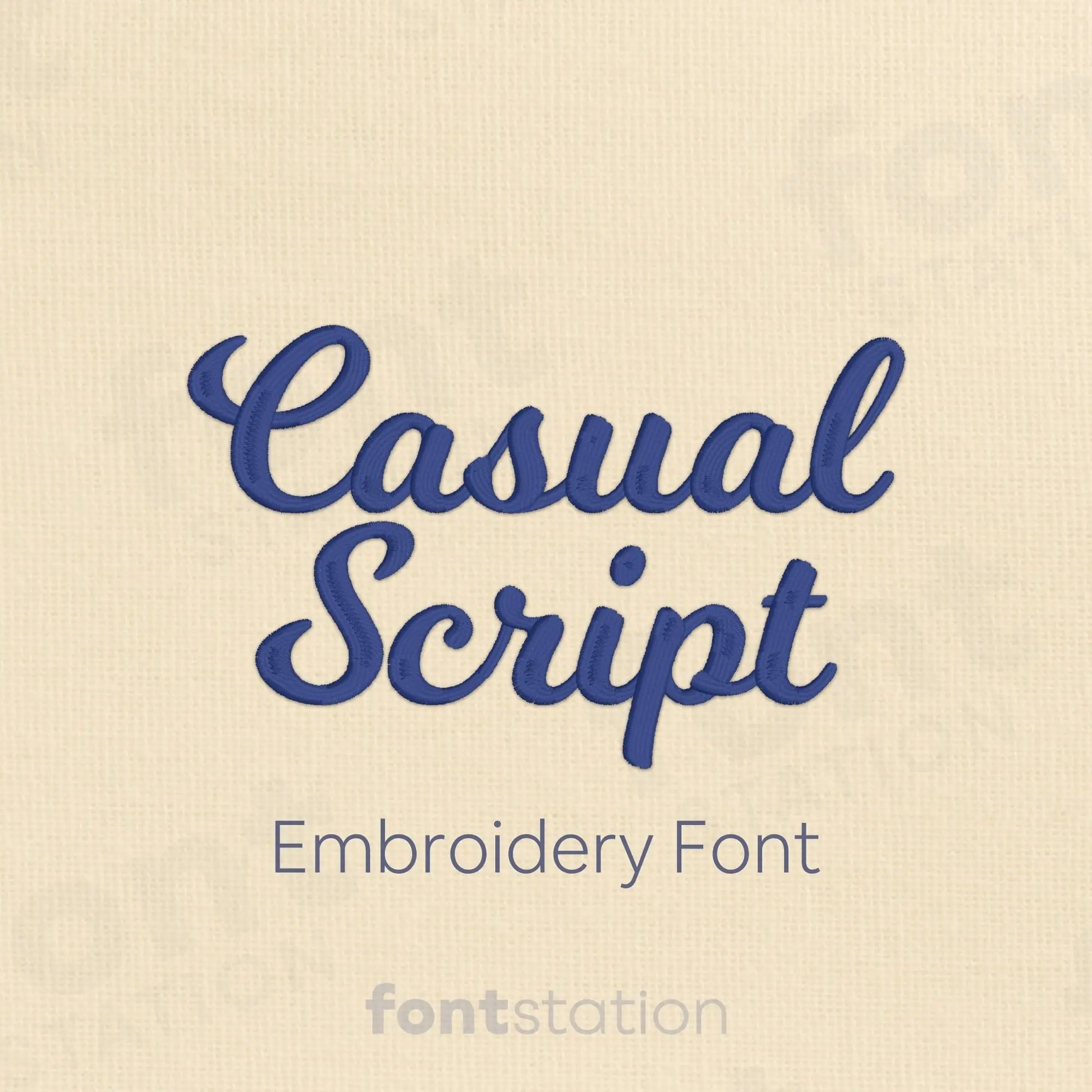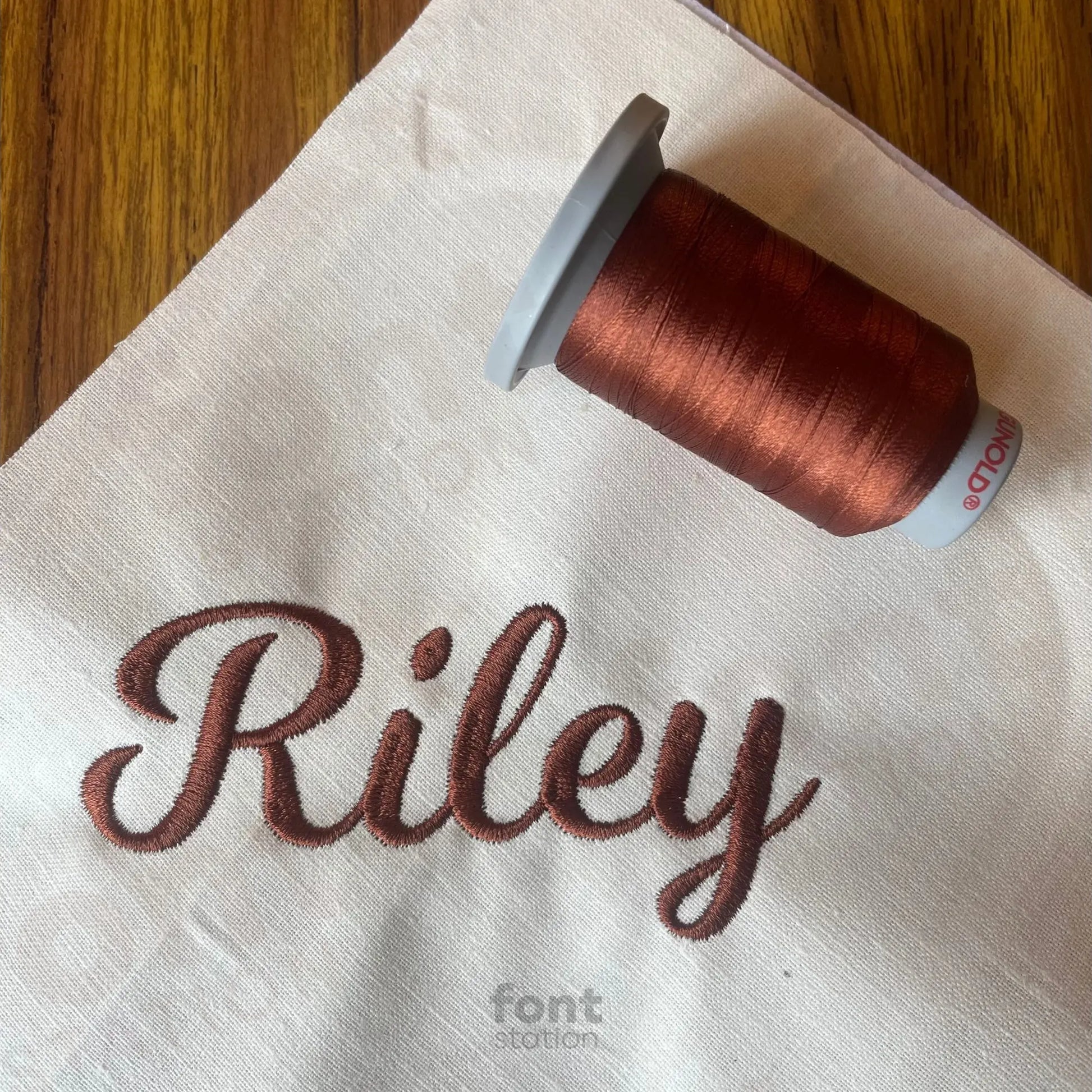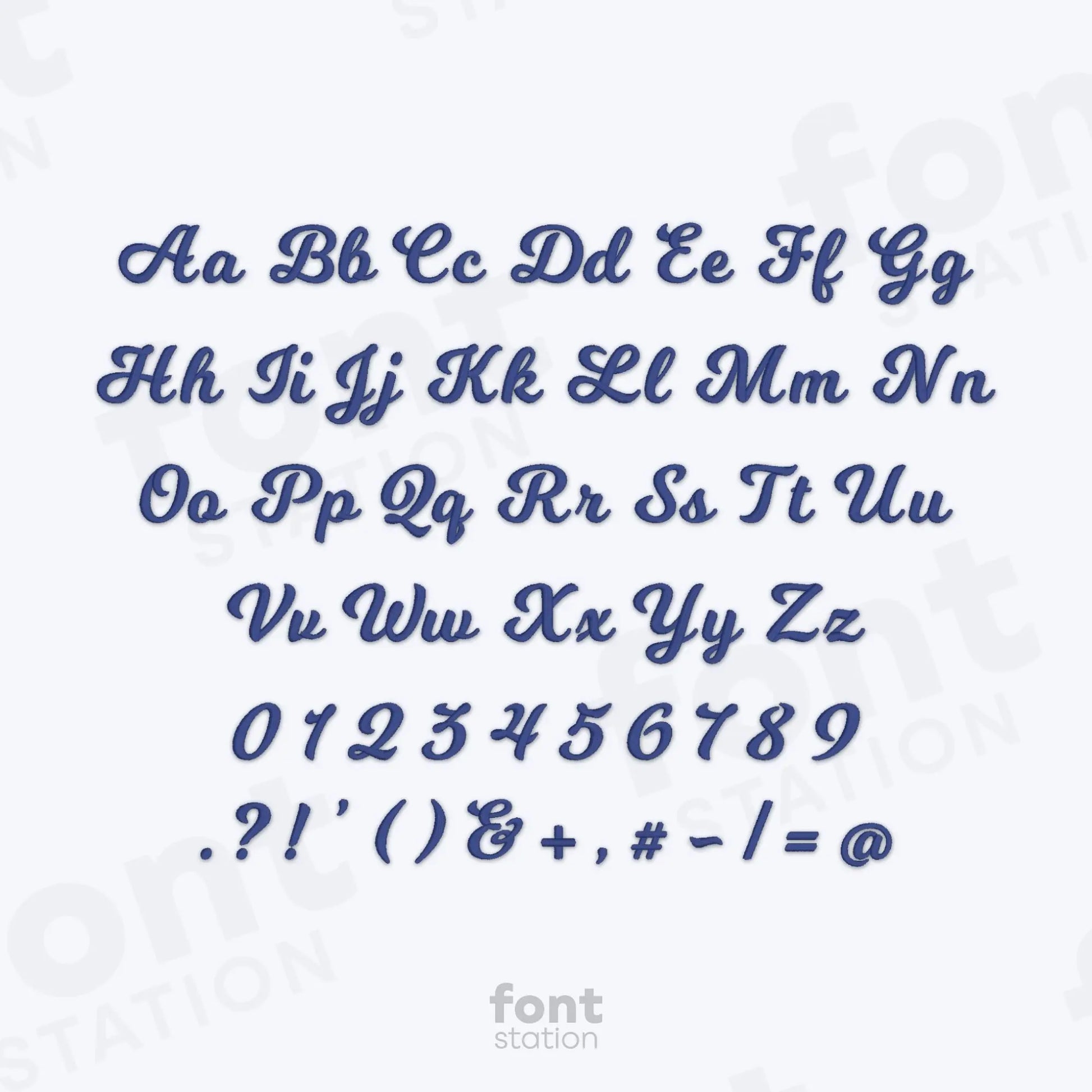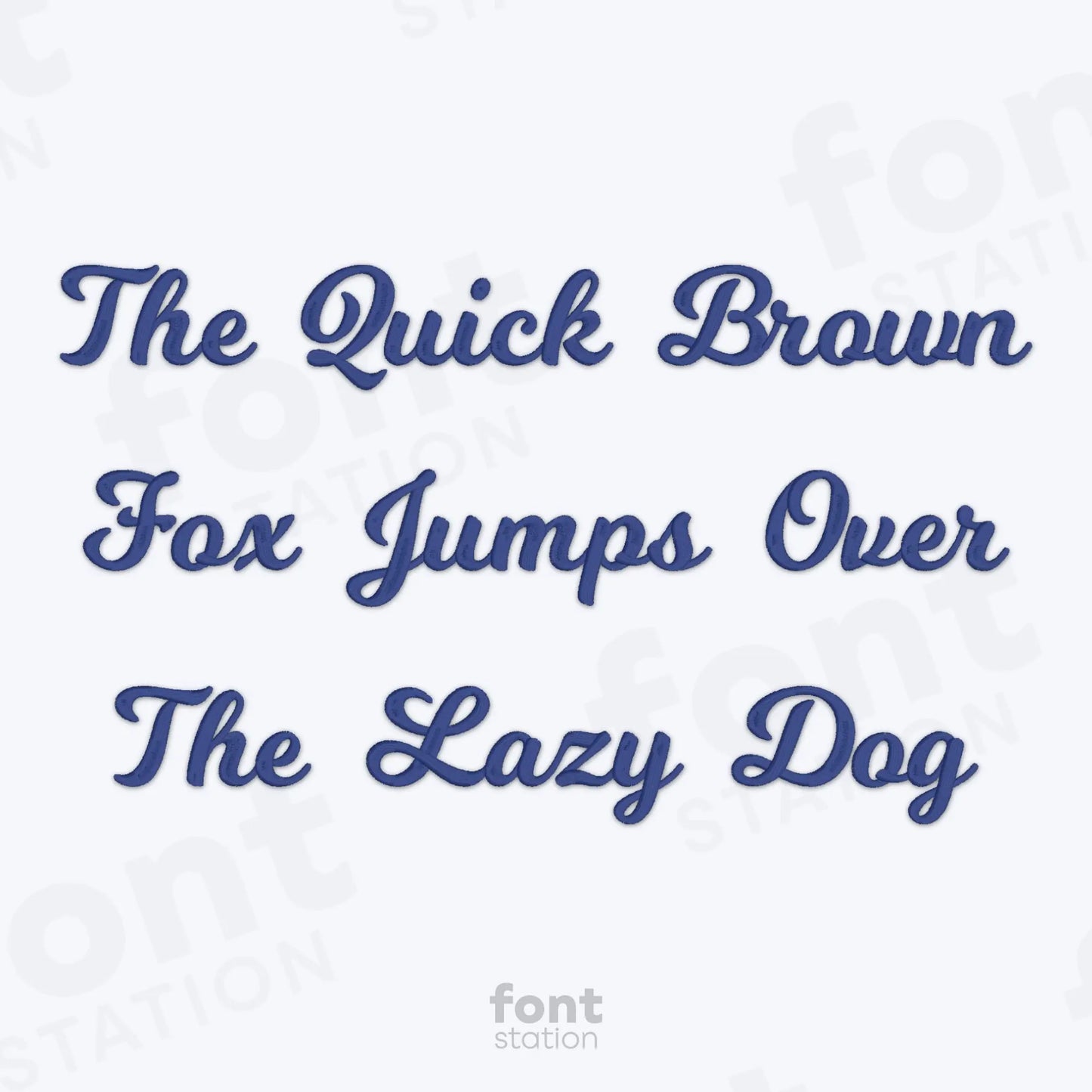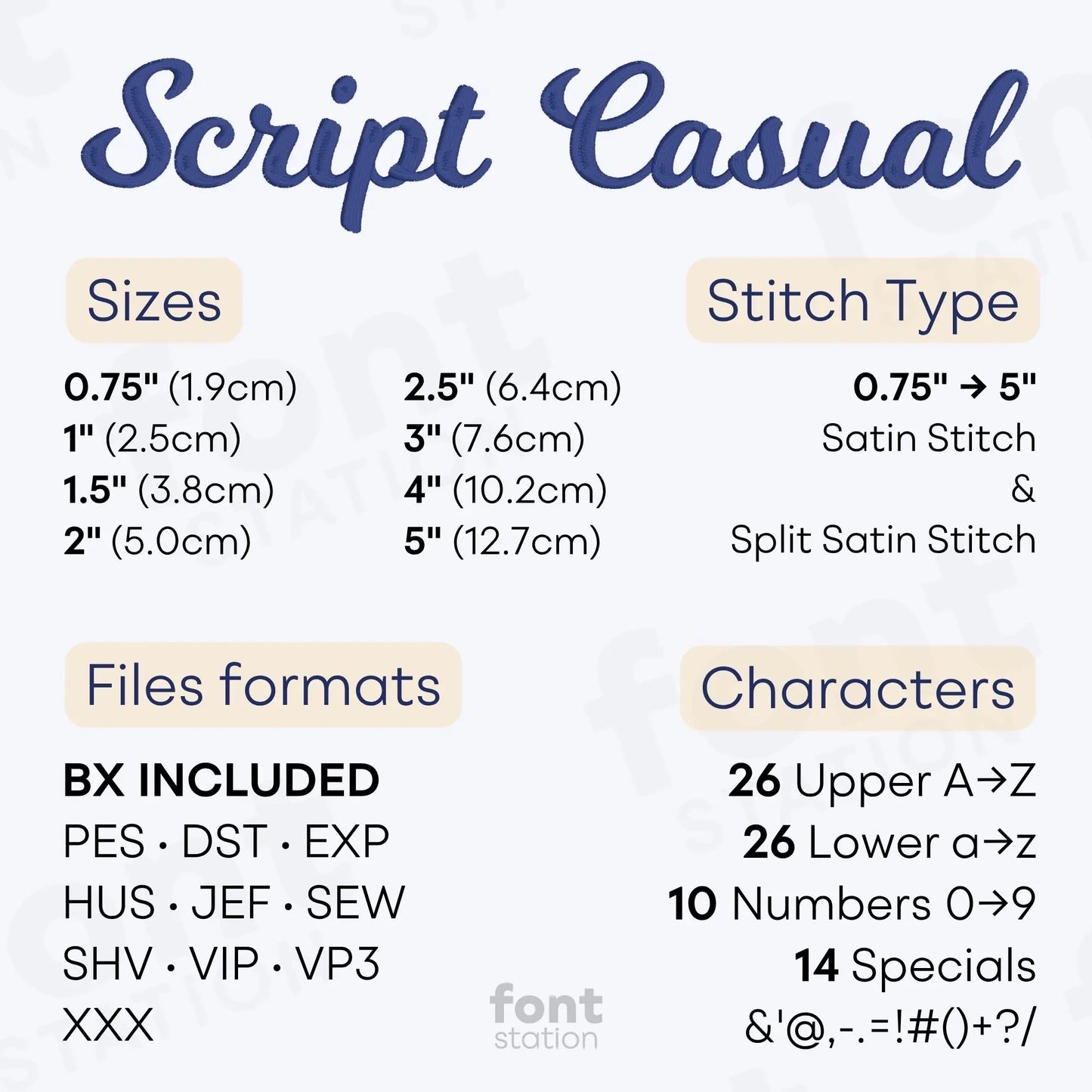
Casual Script Embroidery Font
Introducing our Casual Script embroidery font, a Modern, Beautiful alphabet with smooth letters that stitch perfectly on your embroidery machine. Ideal for names, quotes, and creative designs, it brings a natural handwritten touch to every project.
About the Casual Script Embroidery Font
Characters: 26 uppercase, 10 numbers, 26 lowercase, and symbols & ' @ , - . = ! # ( ) + ? /
Our Casual Script embroidery font adds a Modern, Beautiful touch to any project.
This elegant embroidery font features a smooth, connected script alphabet designed for clean stitching and easy readability. Perfect for names, quotes, and creative embroidery designs, these machine-ready letters stitch beautifully on any embroidery machine. Available in popular formats like BX, PES, DST, JEF, EXP, and VP3, the Casual Script embroidery font is ideal for both personal and professional projects that need a natural, handwritten feel.